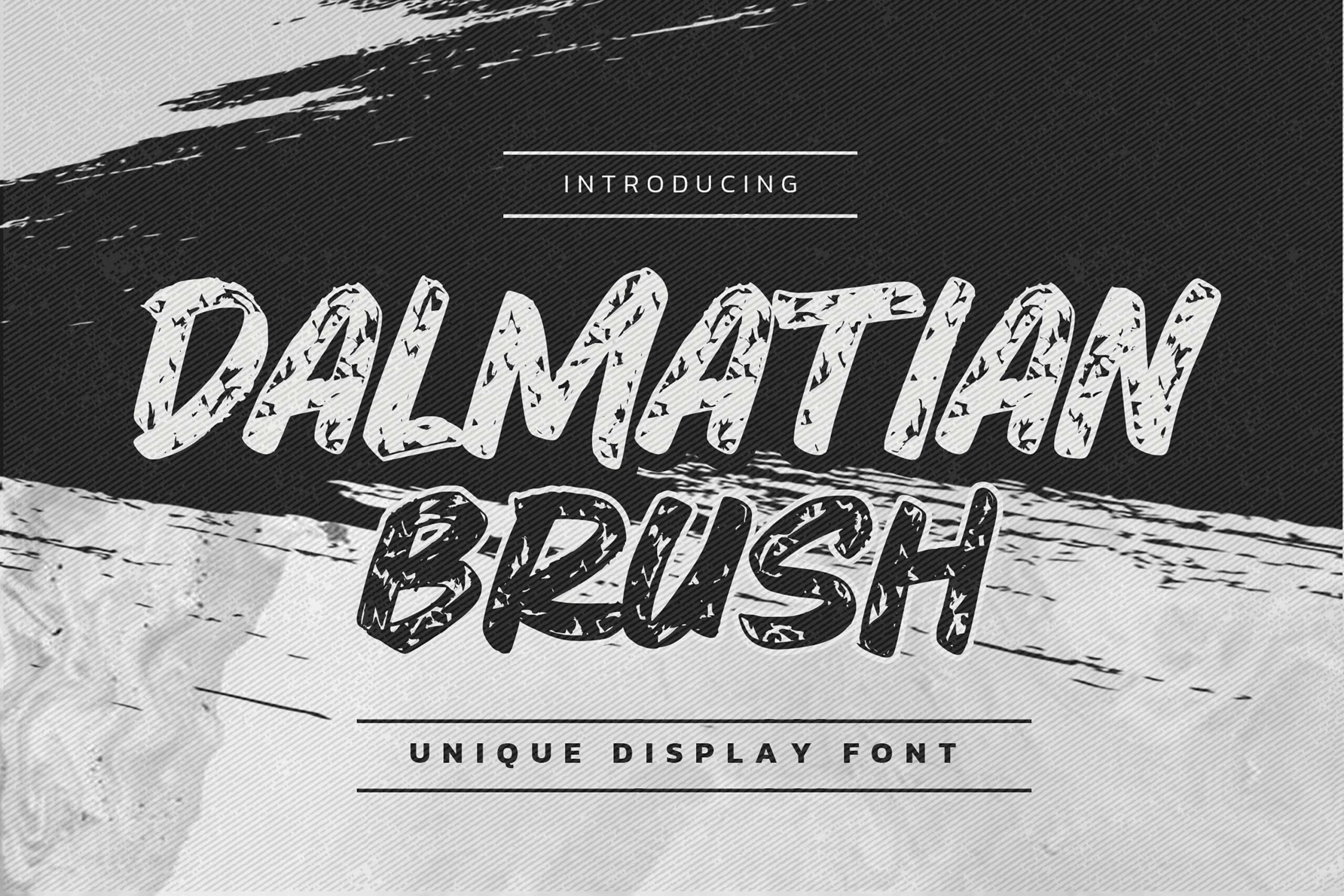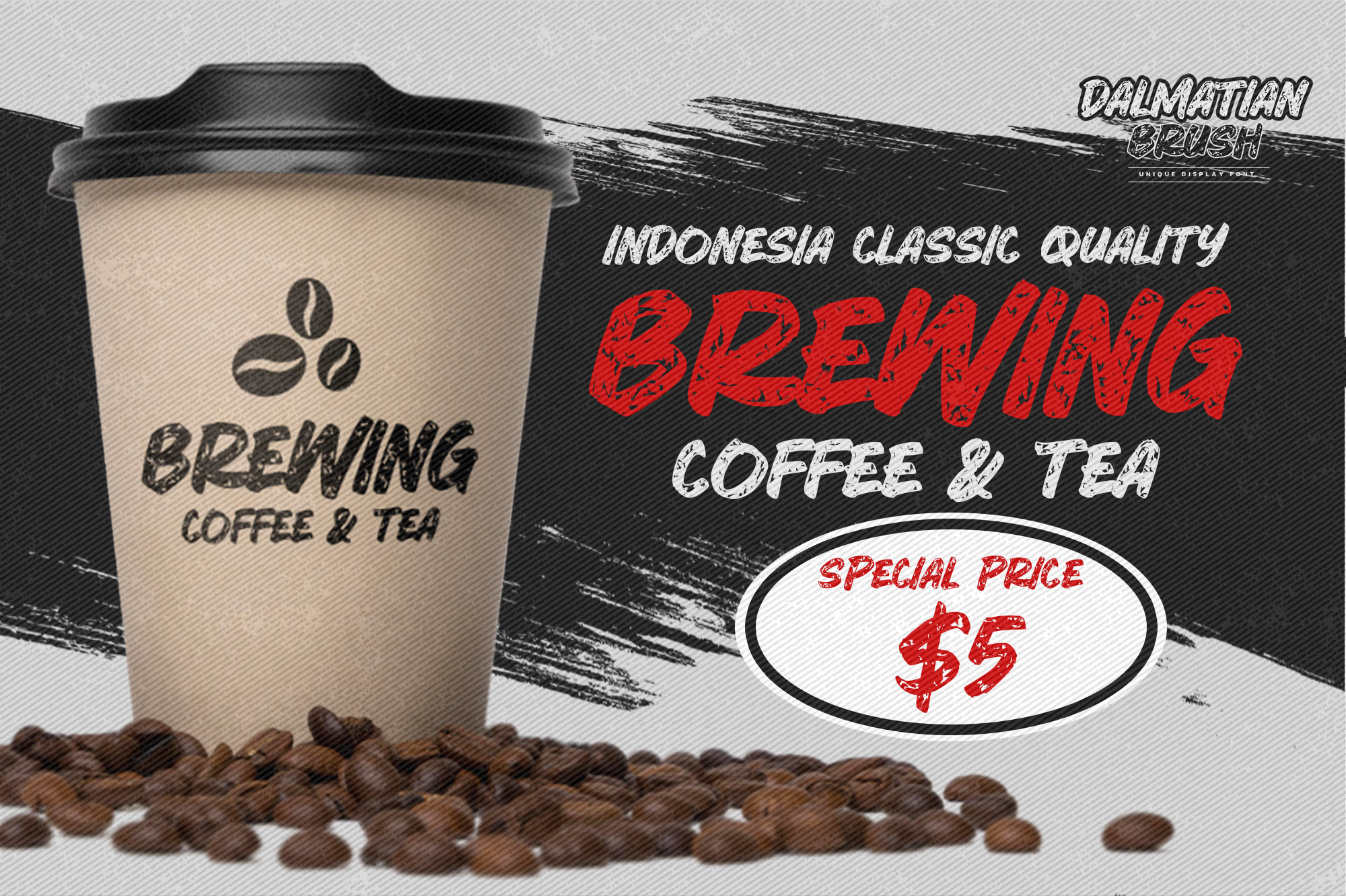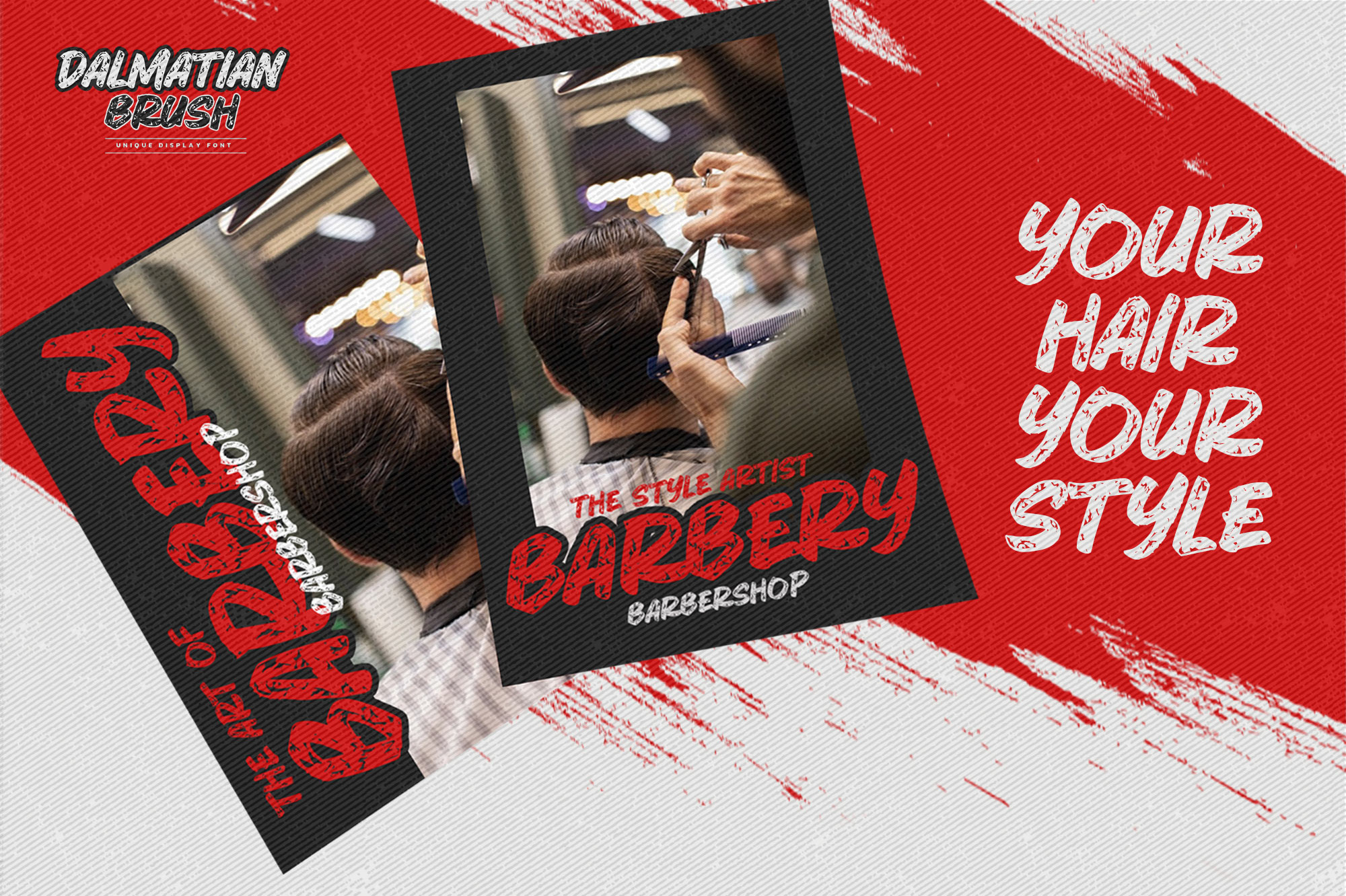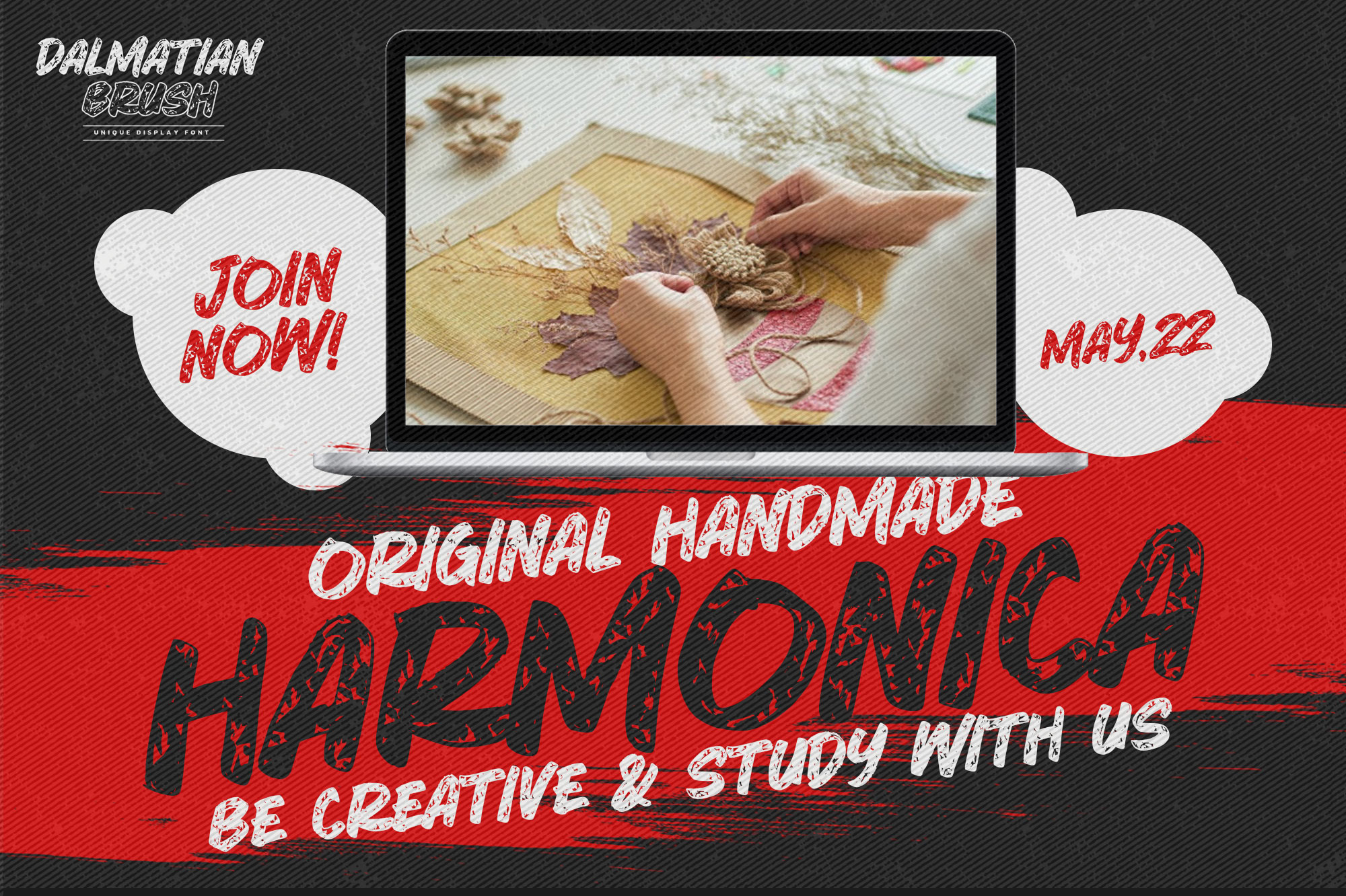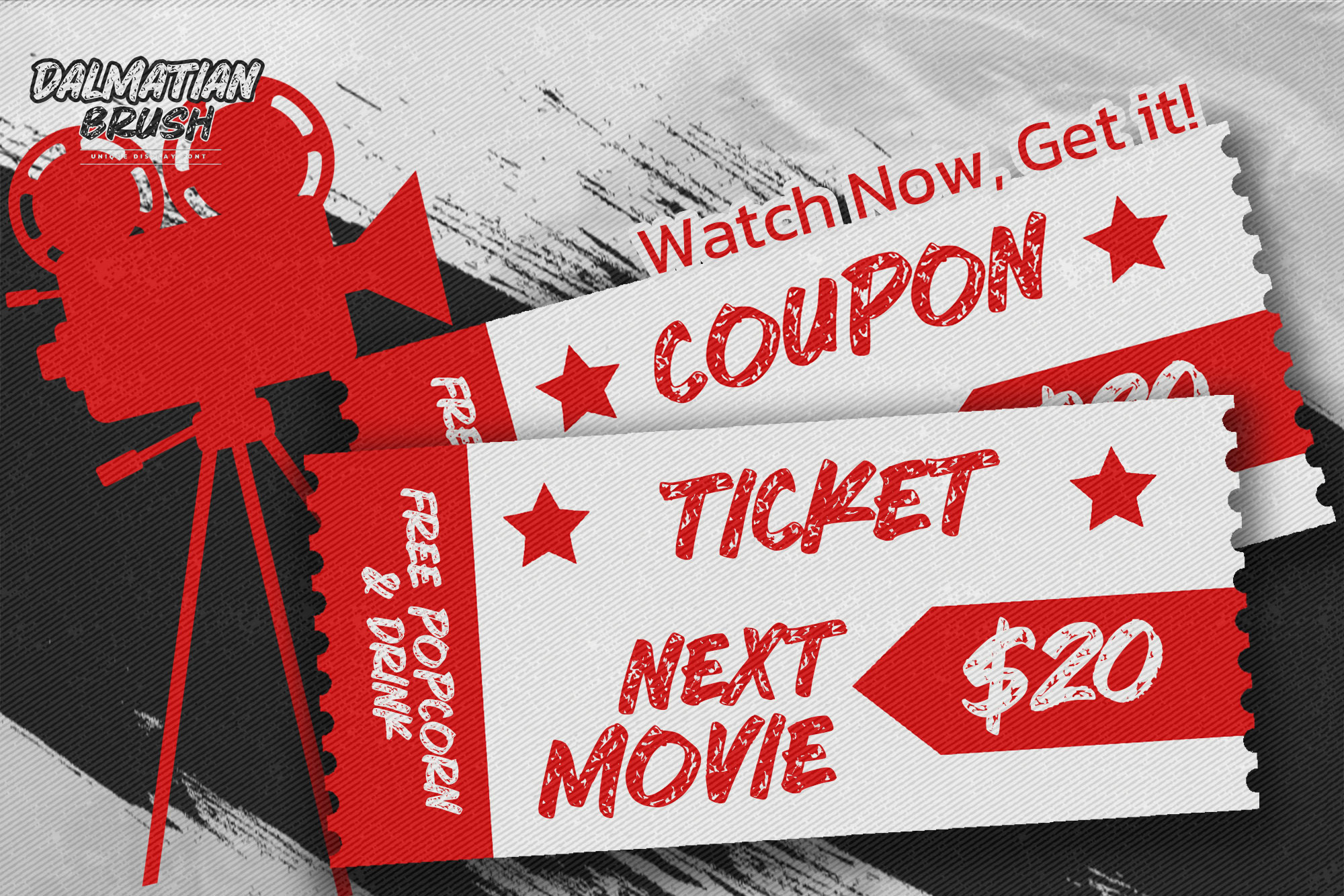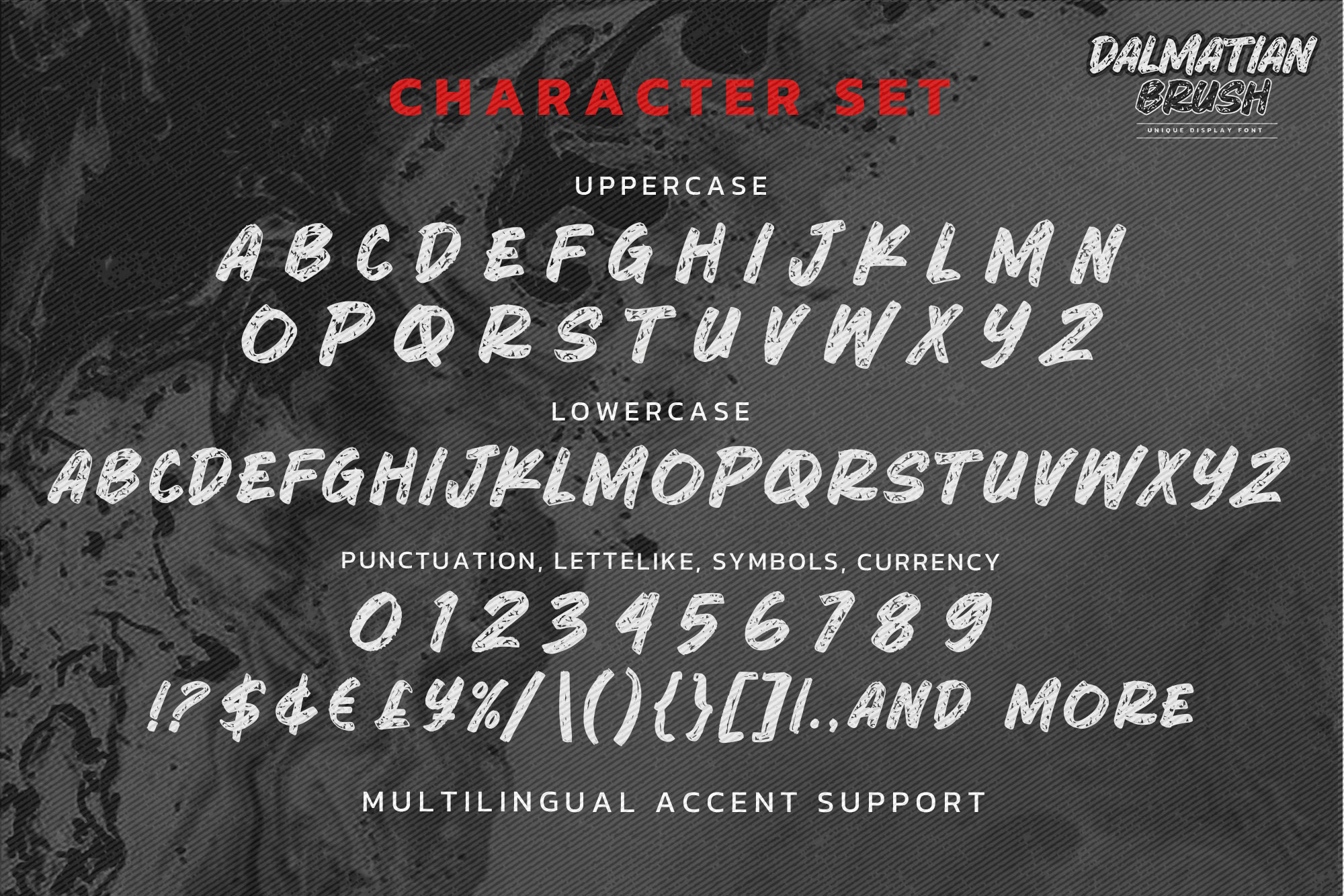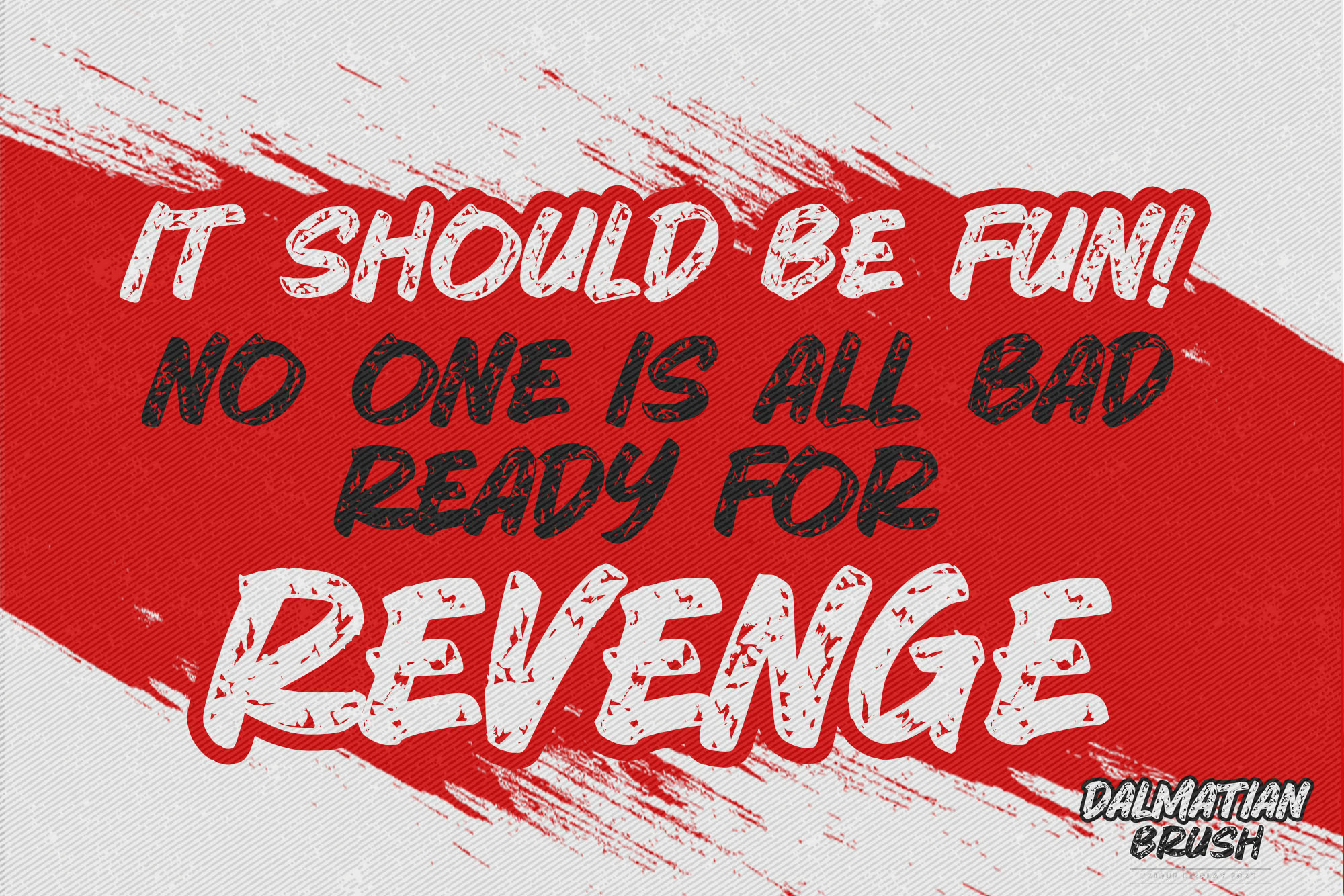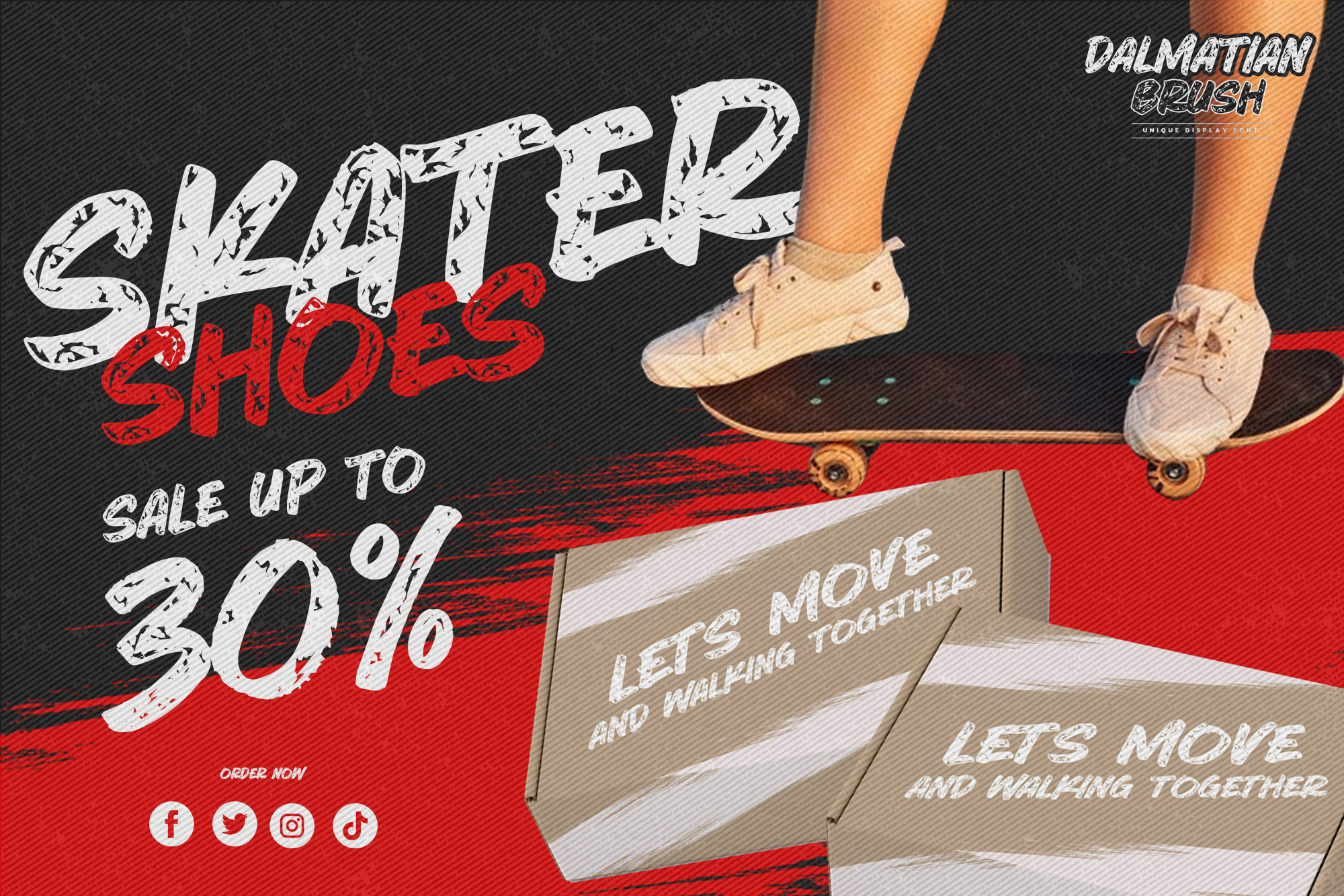
Dalmatian Brush – Unique Display Font, modern style and creative movement that is written casually and quickly.
The best for logo ,poster, project , designs look modern, unique and authentic sans. It’s perfect for labels, quotes, posters, DIY projects, branding, packaging, greeting cards, websites, photography overlays, signs, scrapbooking, tags and so much more! That is why Dalmatian Brush has a unique , and authentic characteristic more natural look.